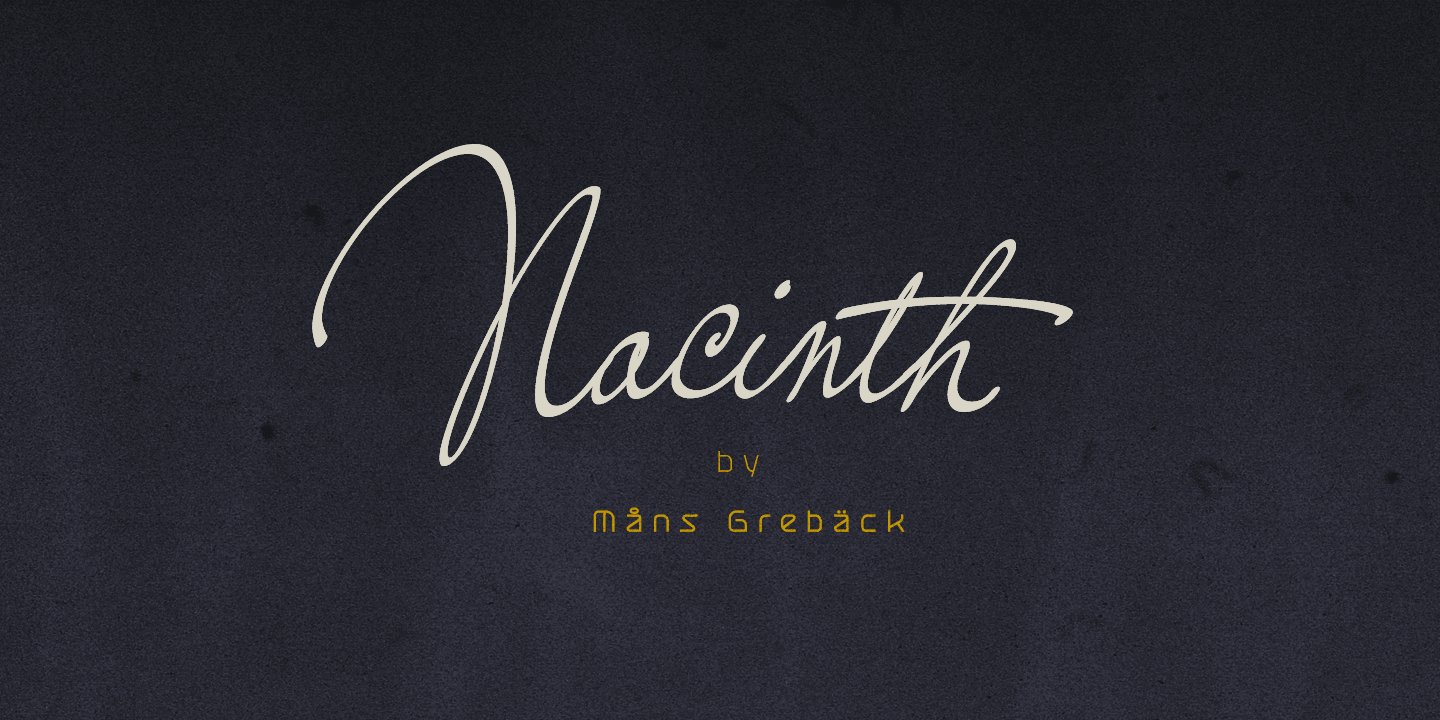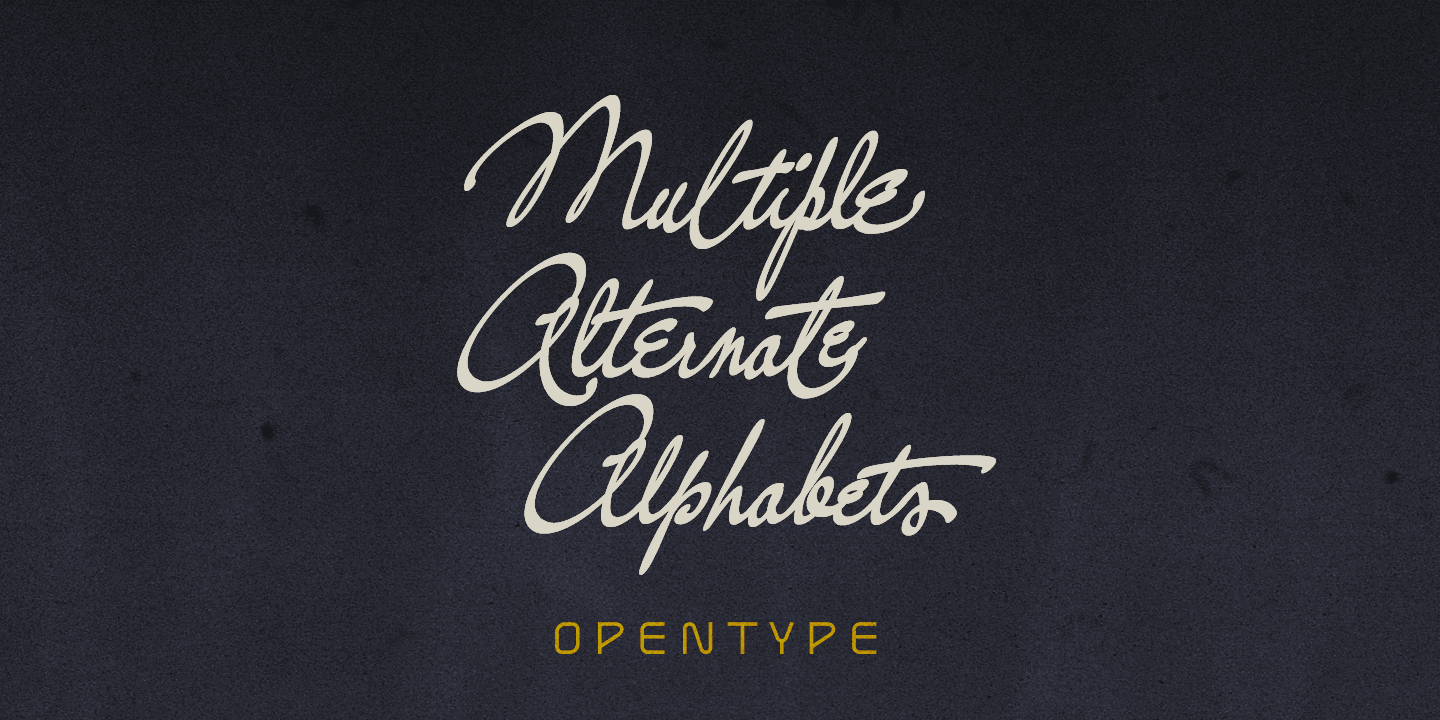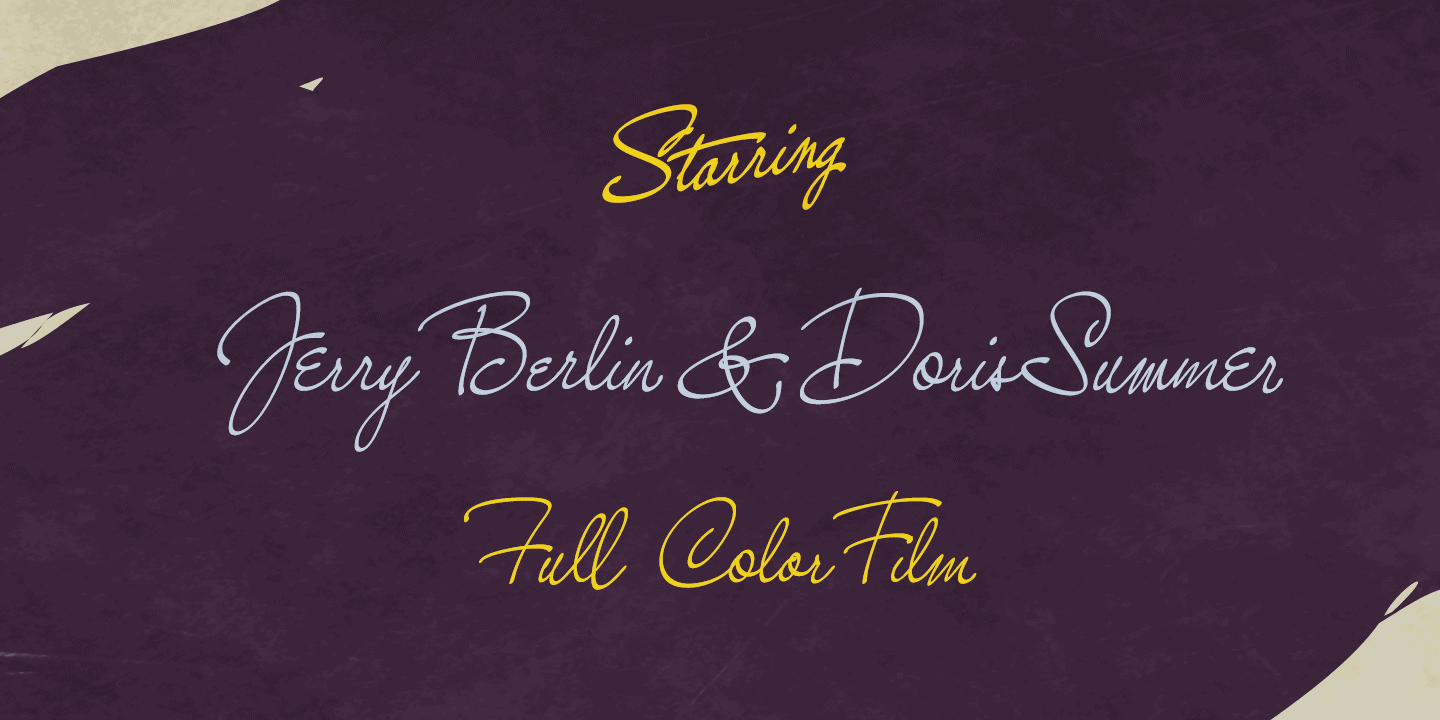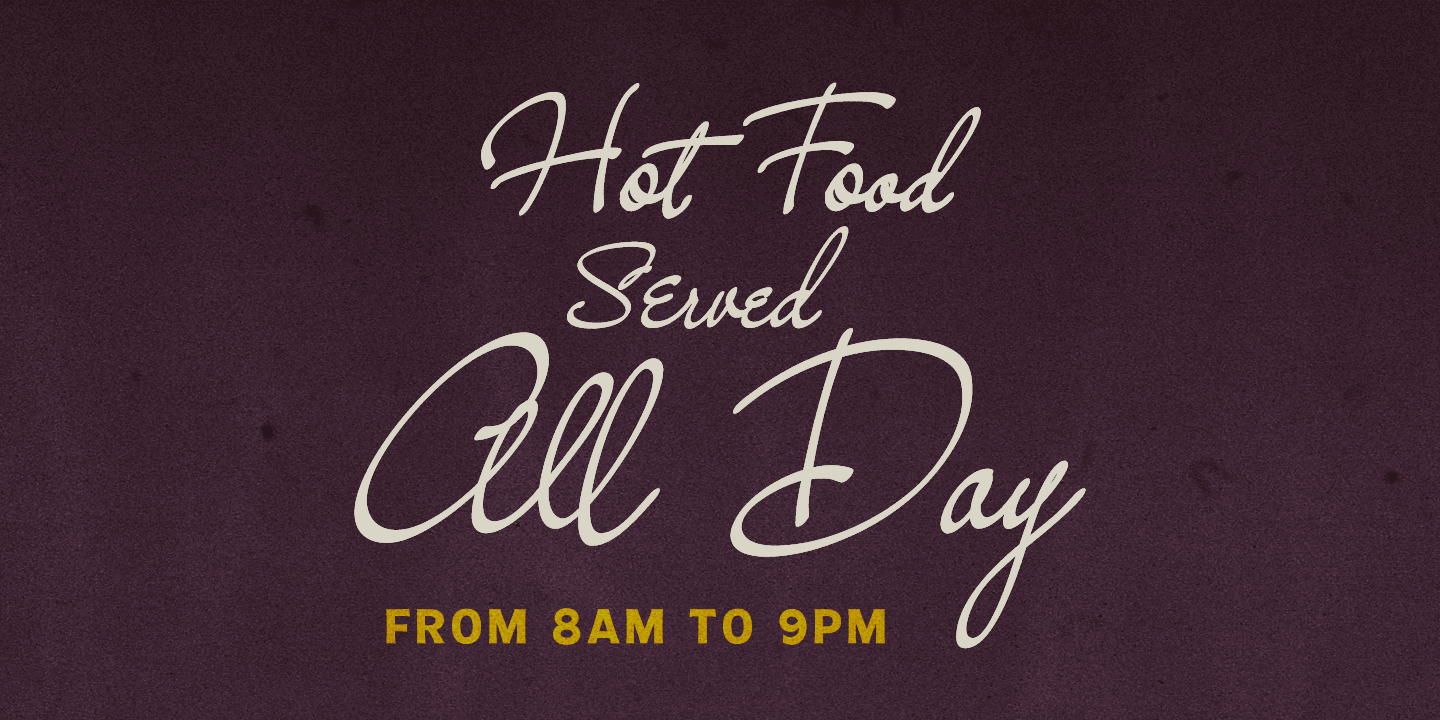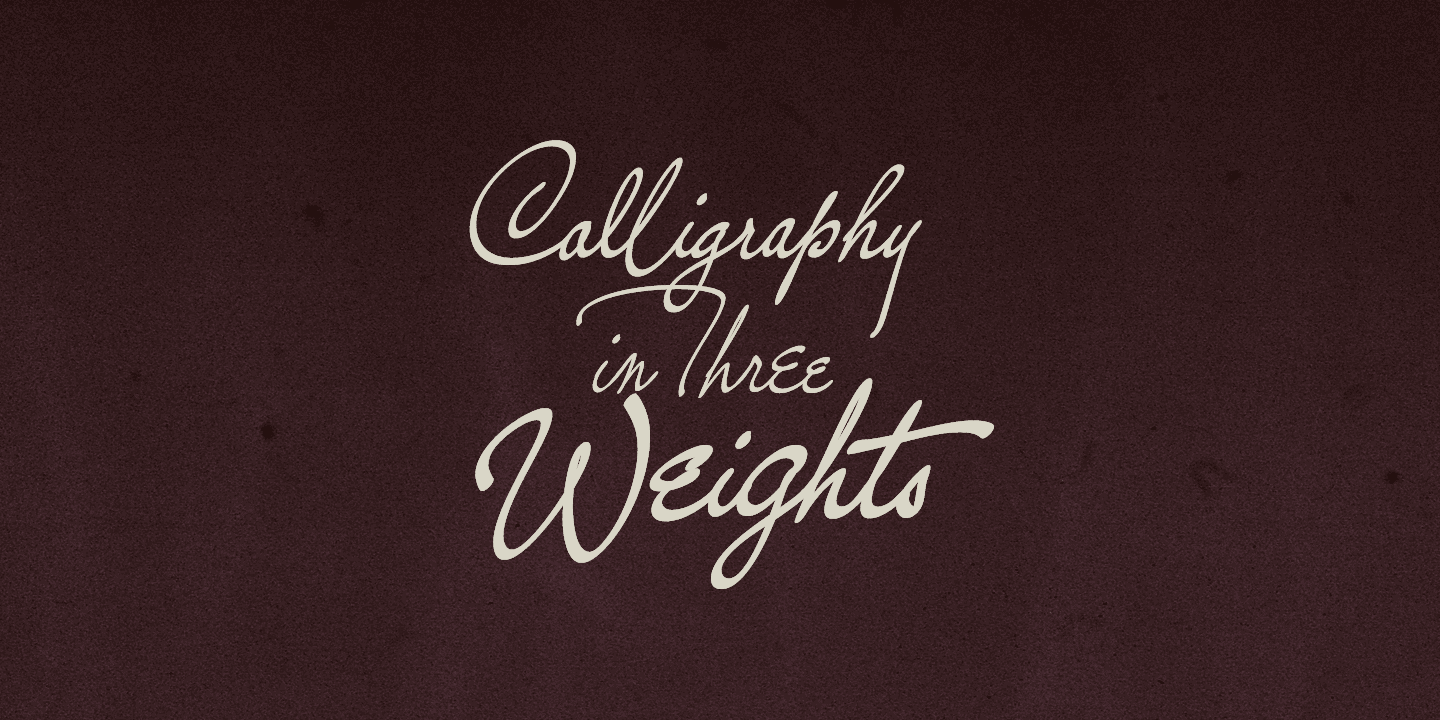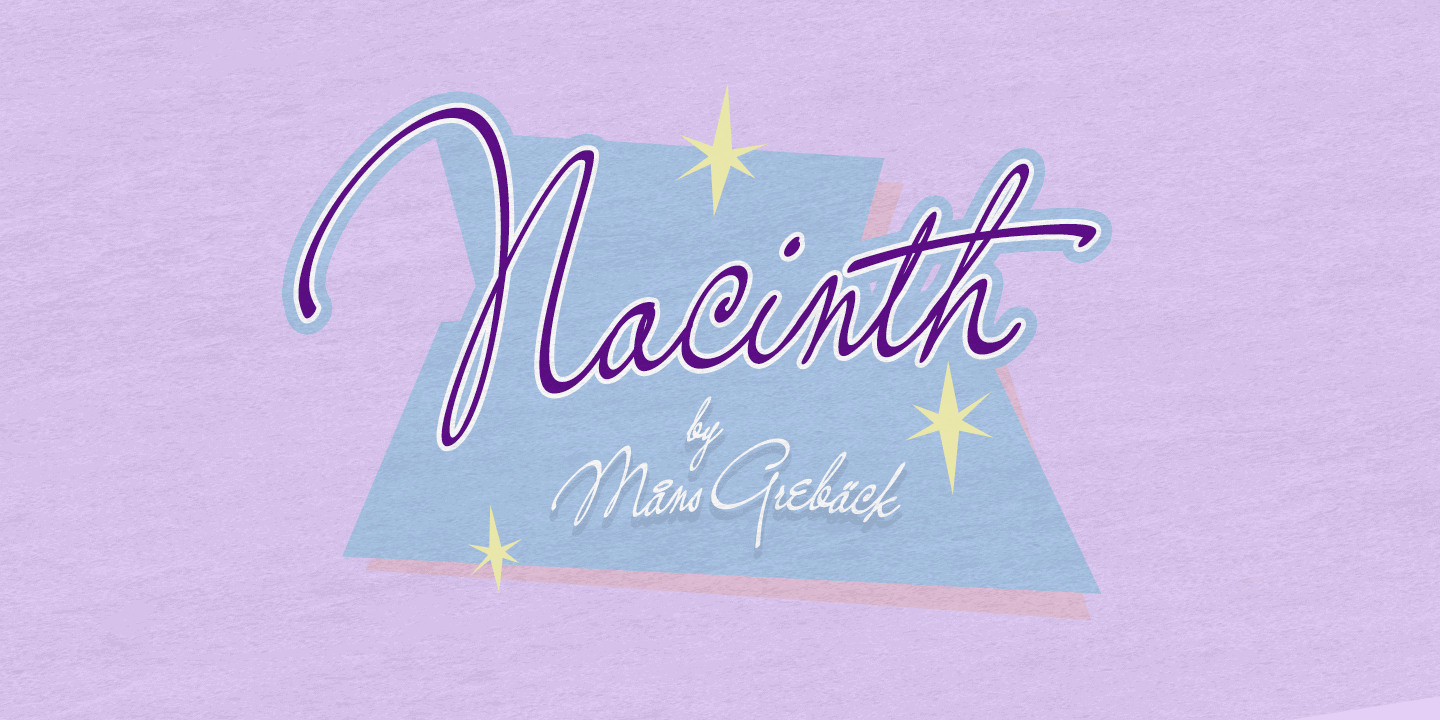
Nacinth
Nacinth is a wild calligraphy script. The typeface was drawn and created by Måns Grebäck between 2018 and 2020. Its open shapes are inspired by mid-century advertising, is full of life and emits liberty and optimism. The handwritten family consists of three weights: Nacinth Thin, Nacinth Medium and Nacinth Bold. It contains all characters you’ll ever need, including all punctuation and numbers.